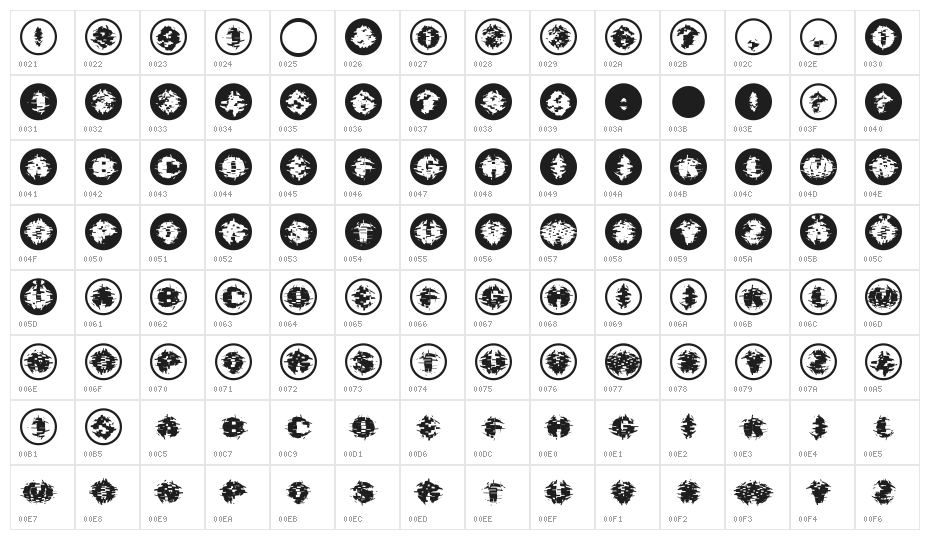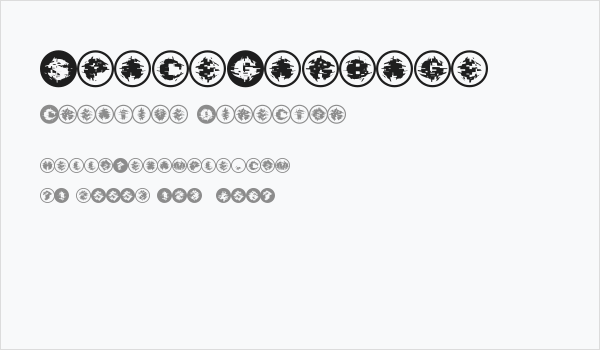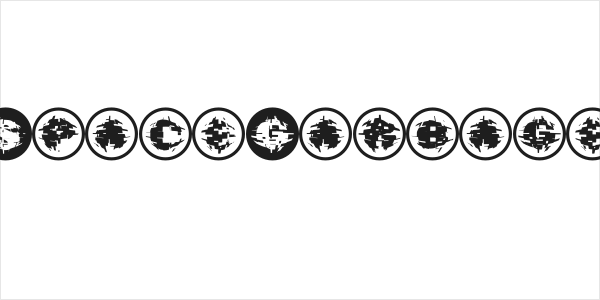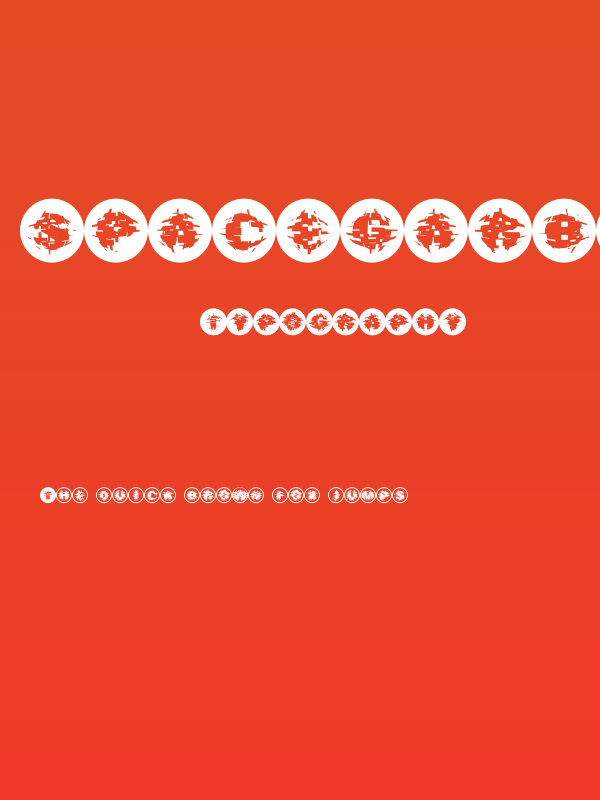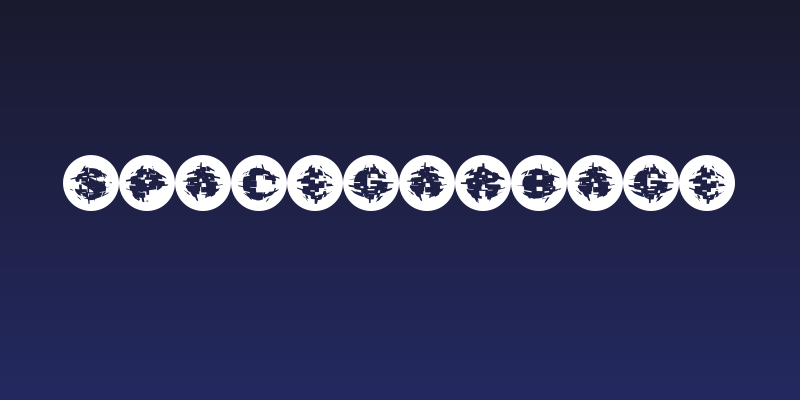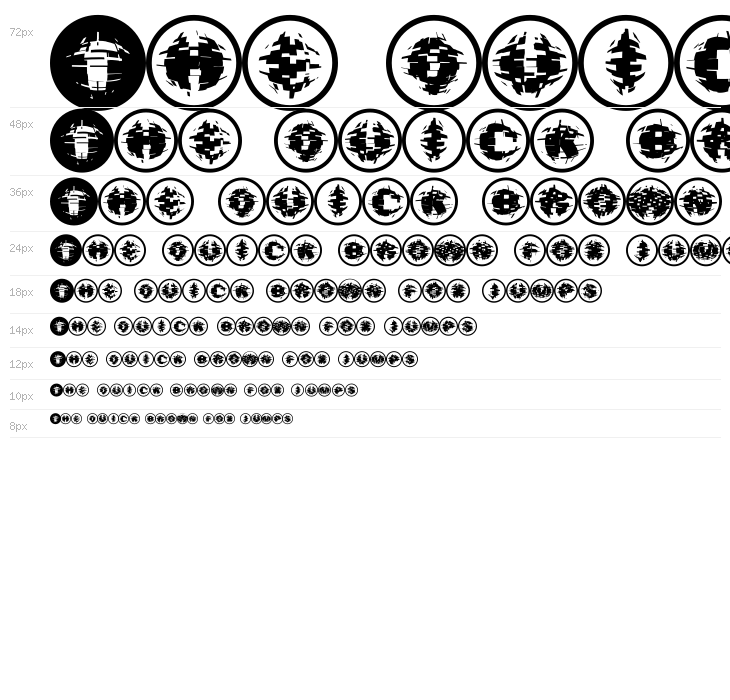
SpaceGarbage Font
| Stile generale | Modern, Futuristic, Abstract |
| Caso d'uso | Logos, Posters, Digital Art |
| Progetti proposti | Ideal for digital art projects, futuristic branding, or any creative work that requires a modern and edgy aesthetic. |